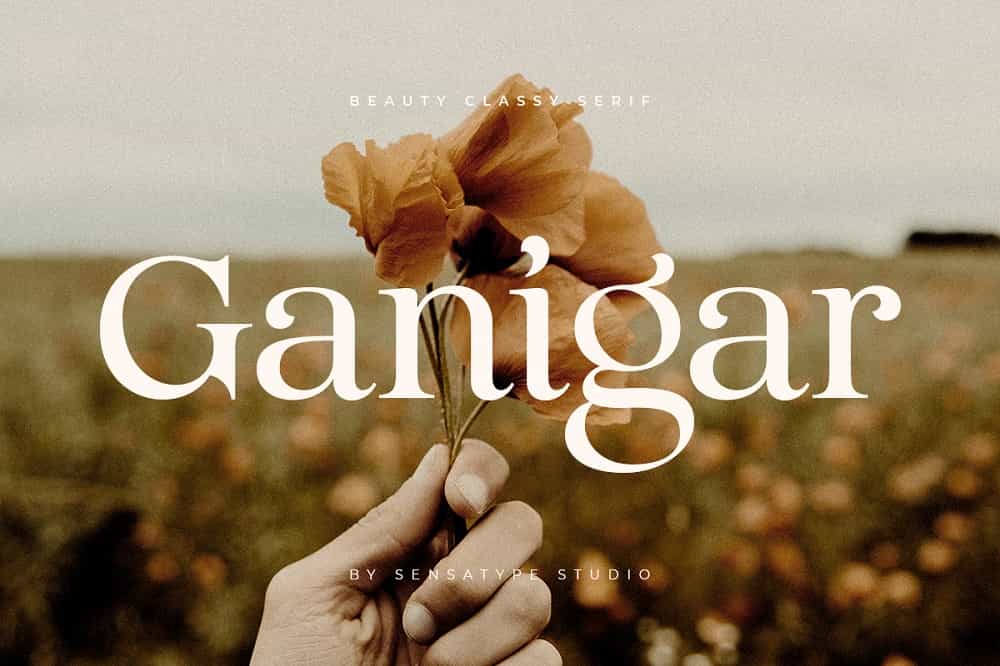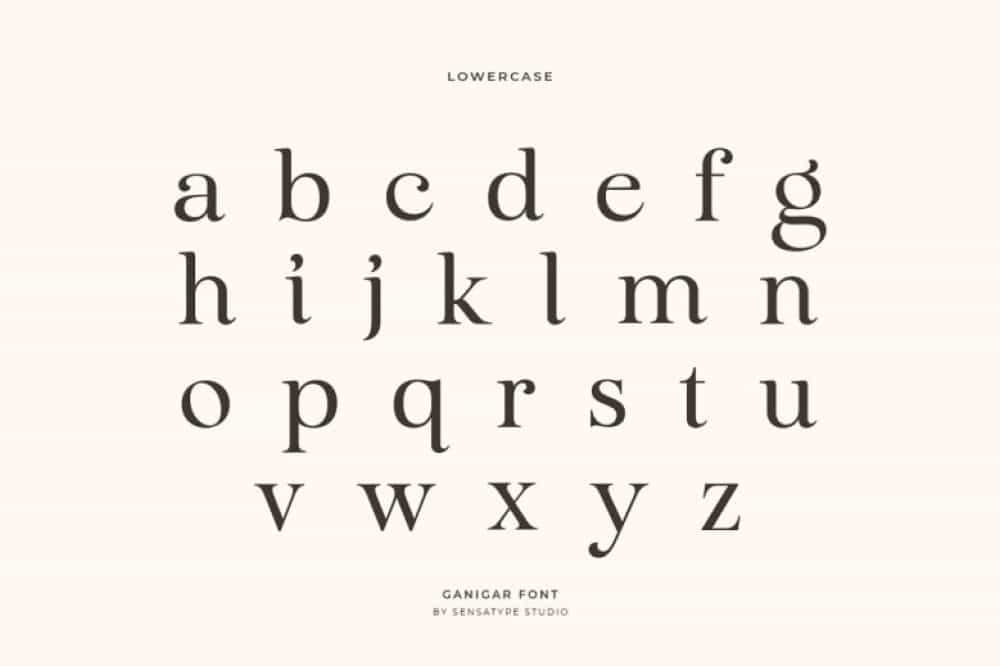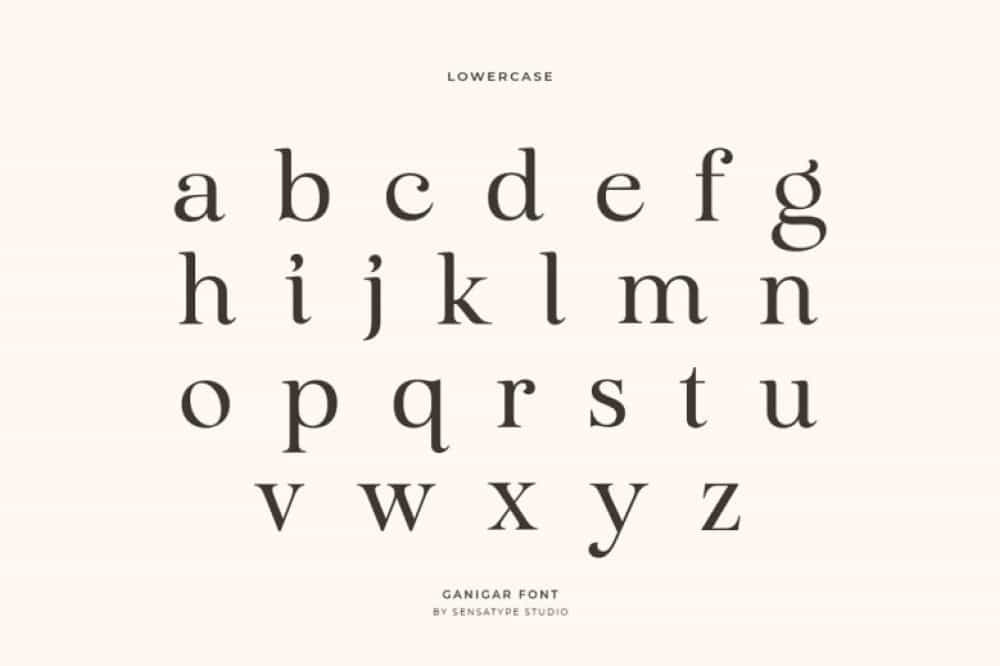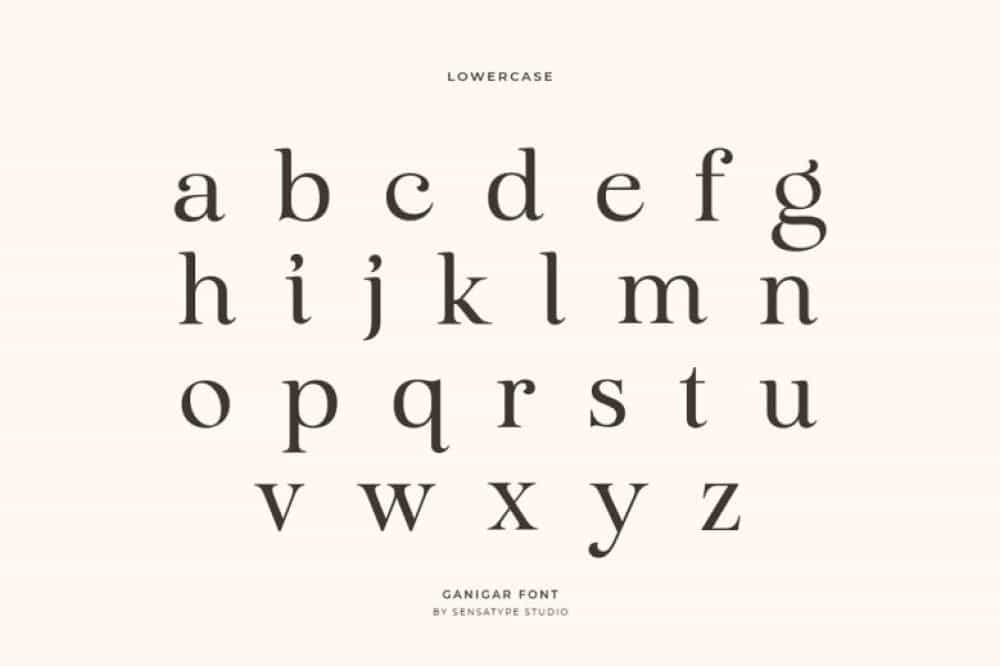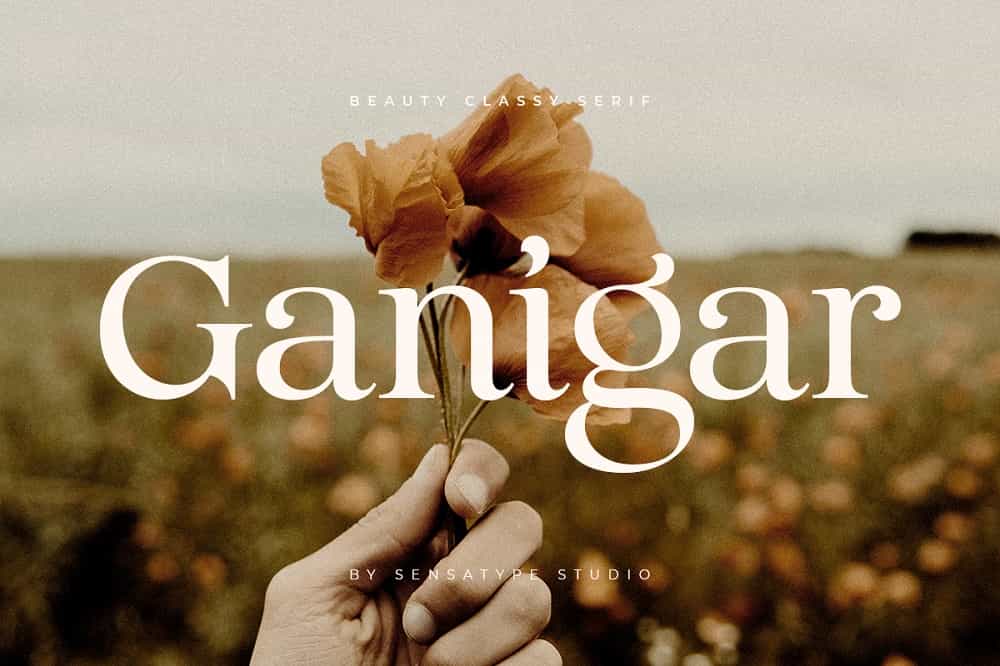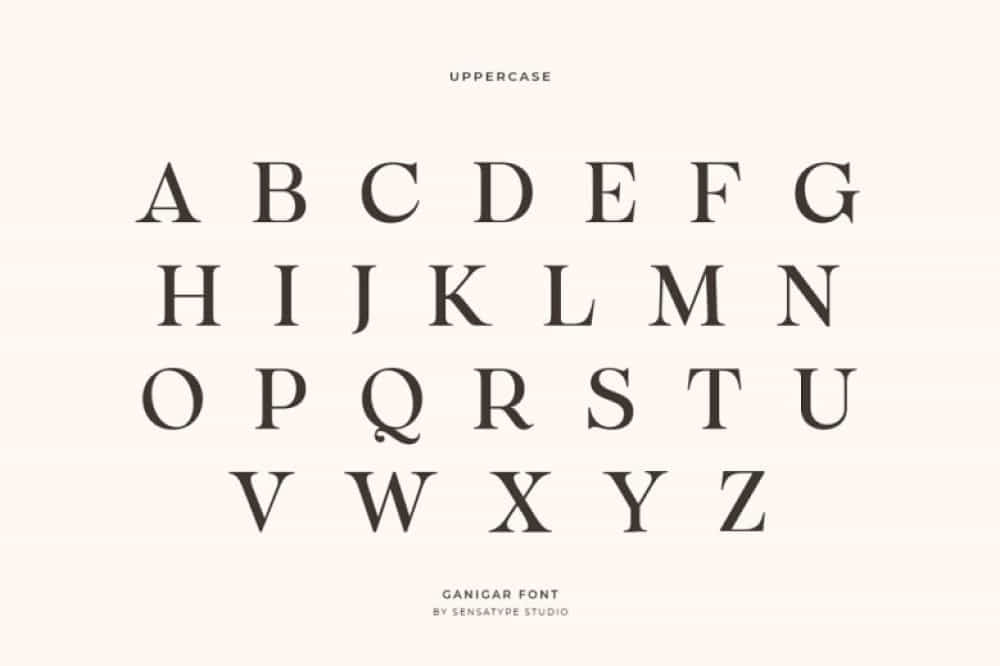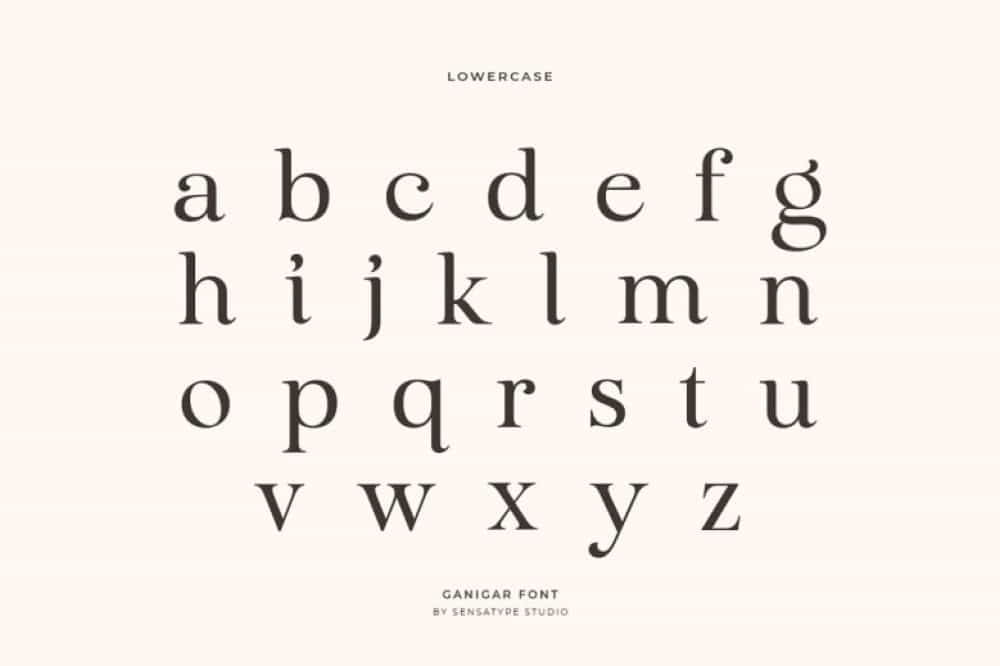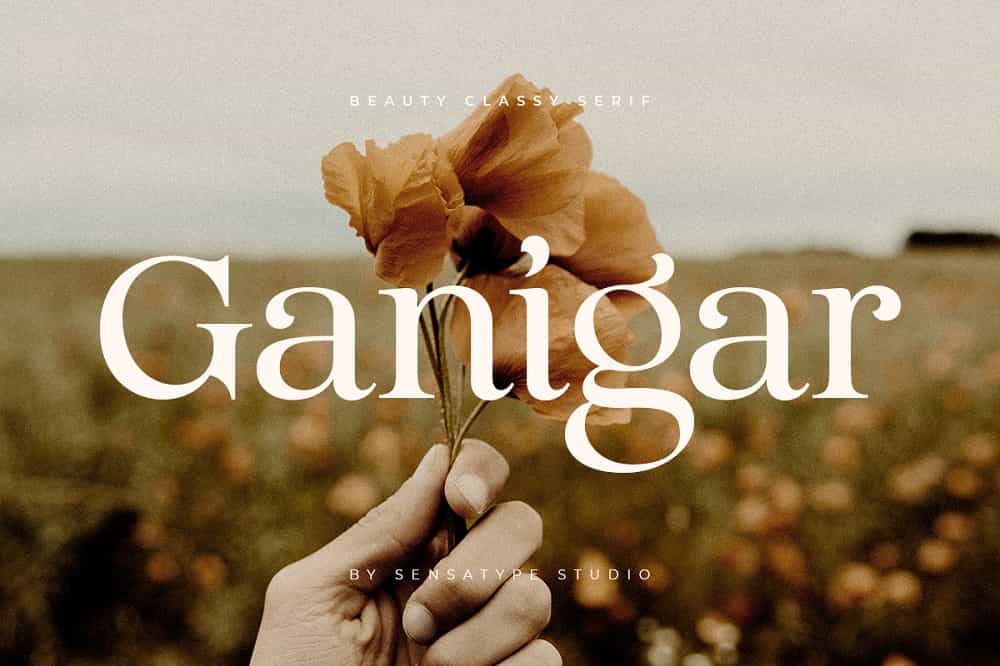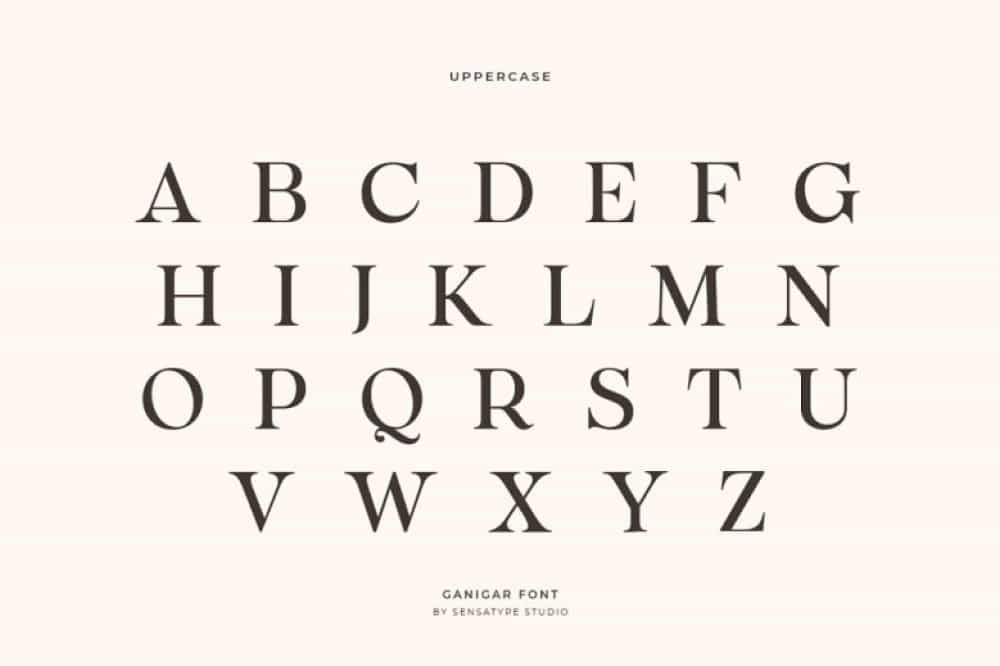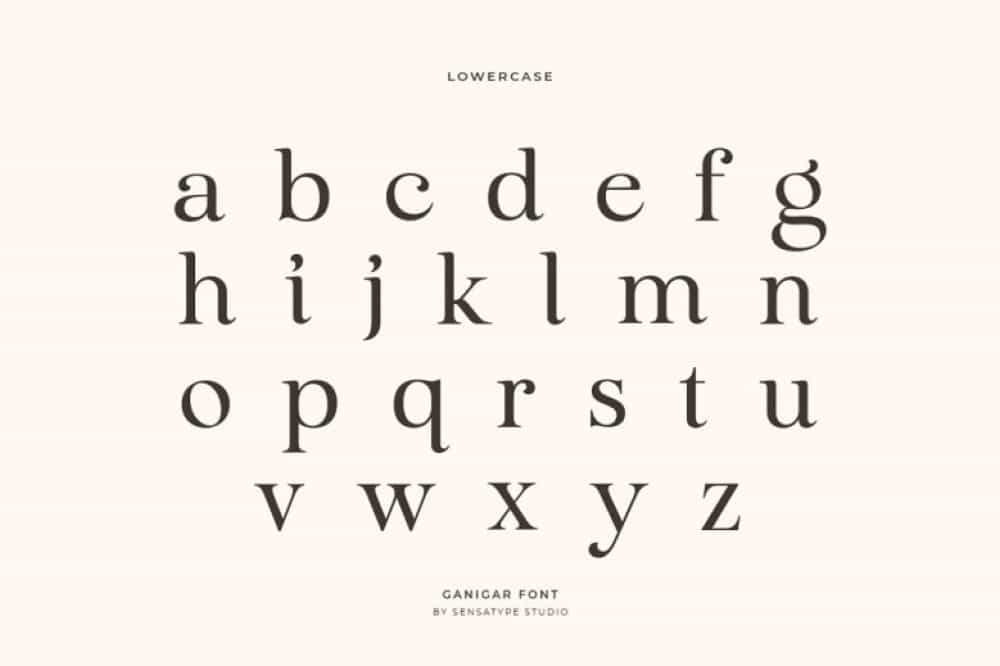
Ganigar Font
Ganigar is a serif font that is characterized by its sophistication and the traditional look that it gives off. It is quite refreshing to propose such a tool to a designer or product owner who requires solutions to enhance the appearance of their design. And especially for this font, We created all the glyphs to make sure that you can produce infinite combinations for your project.